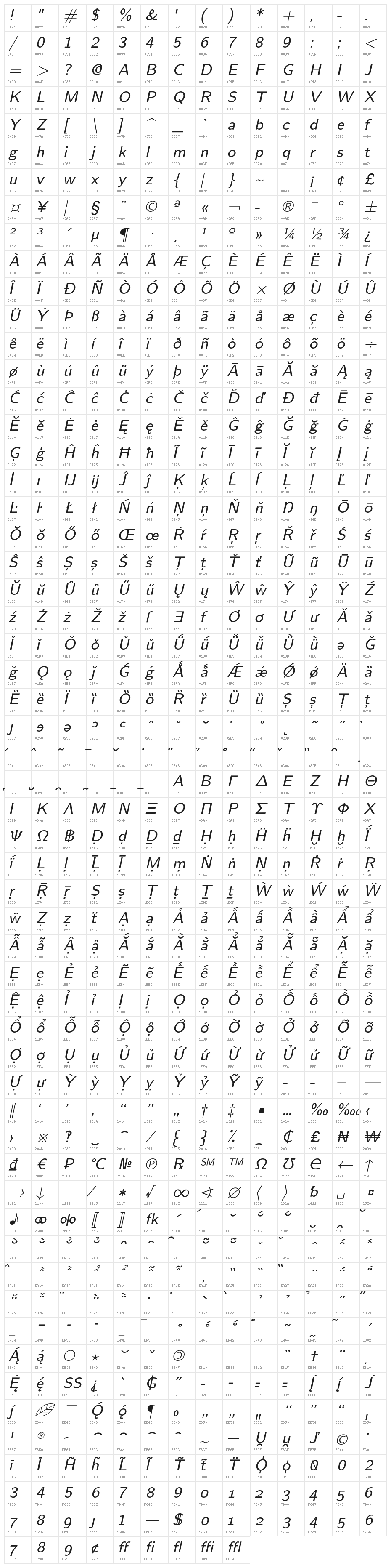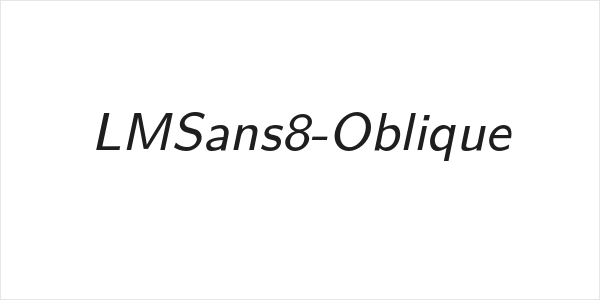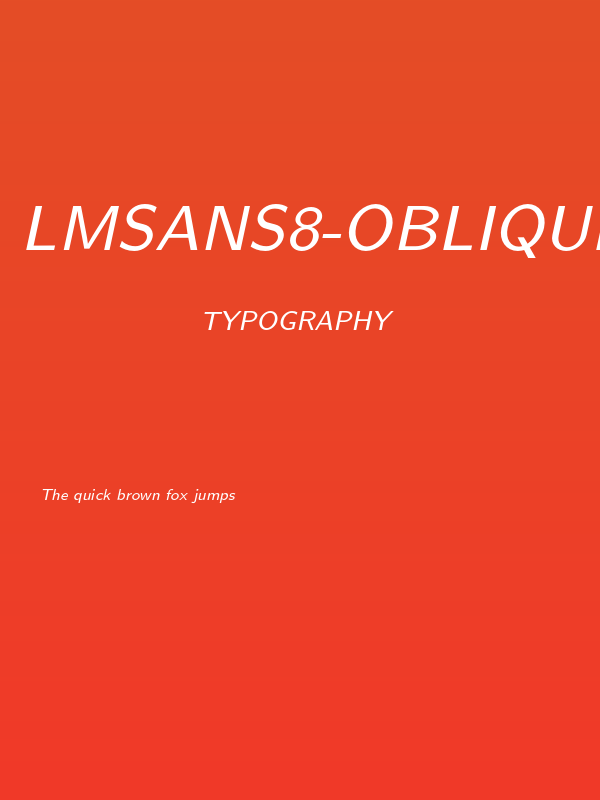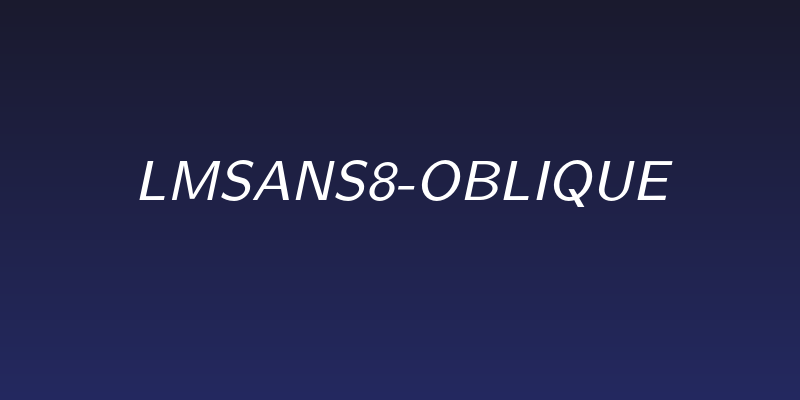
LMSans8-Oblique Font
LMSans8-Oblique Description
This font features a sleek and modern sans-serif design with an oblique style, giving it a dynamic and forward-leaning appearance. The characters are clean and well-defined, with a consistent stroke width that maintains readability across various sizes. The uppercase and lowercase letters are proportionate, and the numerals are clear and distinct. Special characters are elegantly integrated, maintaining the font's overall aesthetic. The oblique angle adds a sense of motion and energy, making it suitable for contemporary design projects.
| Proposed Projects | Ideal for branding, advertising, digital media, and editorial design where a modern and energetic look is desired. |